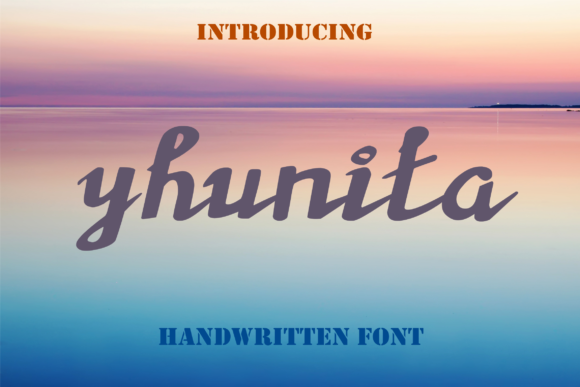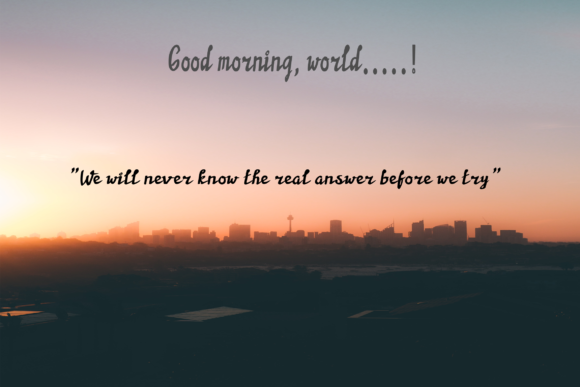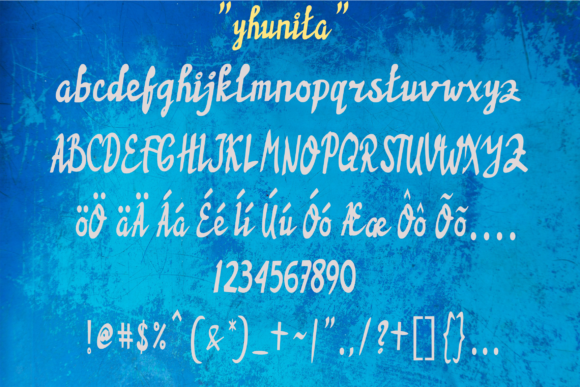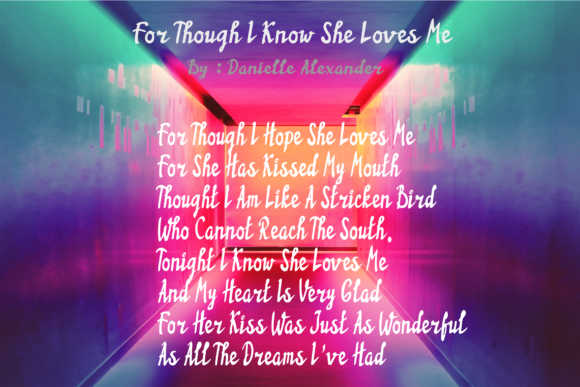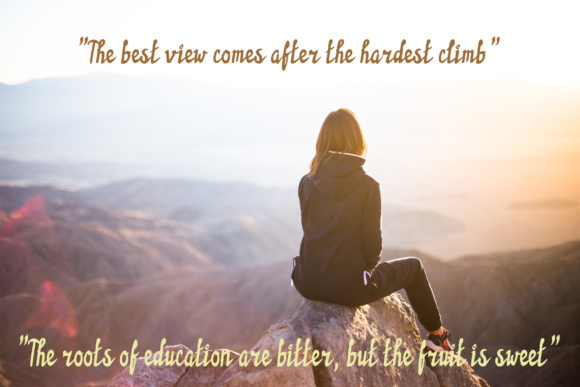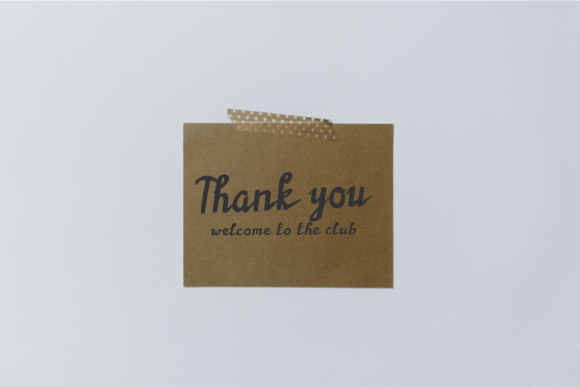
Yhunita Font
About Yhunita Font
Yhunita feels equally charming and elegant. This stunning handwritten font is a stylish homage to classic calligraphy. This font is the perfect fit for all of your logos, branding, social media, and your DIY projects.